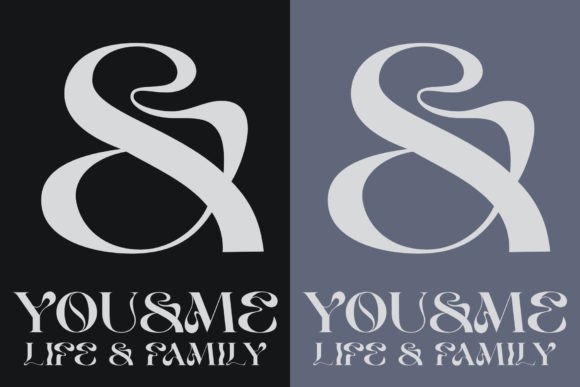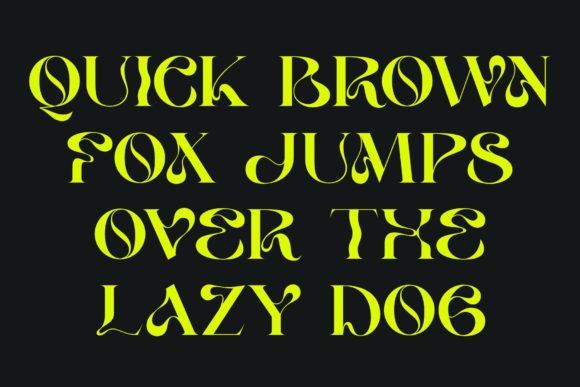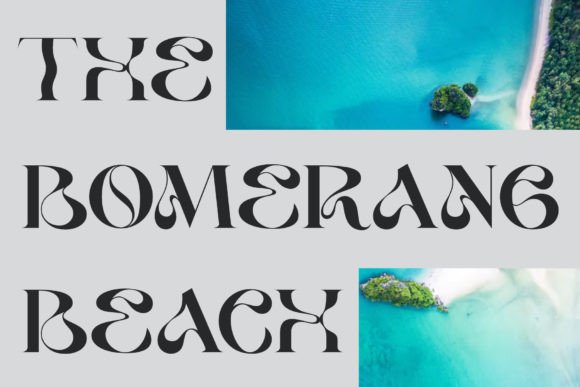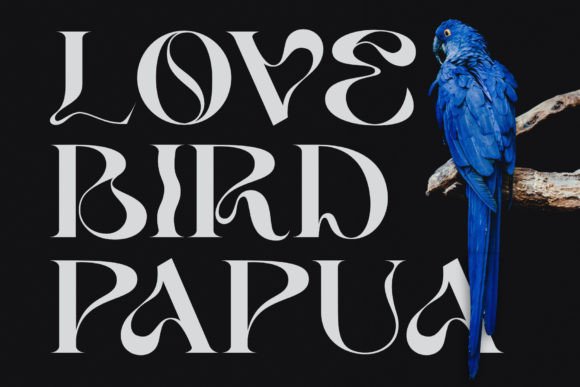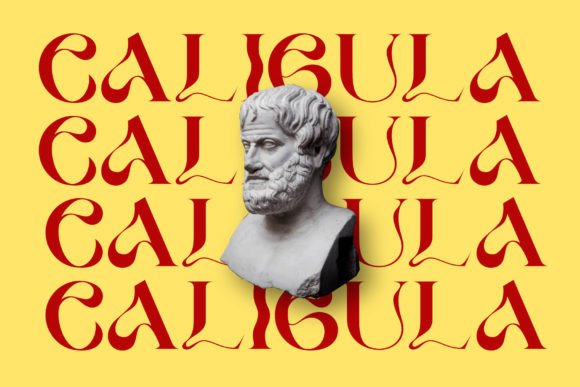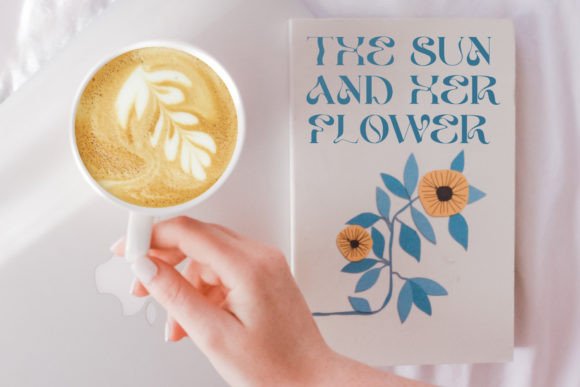
Introduction to Serba Font
Do you remember that moment when you finally nailed a design concept for your creative project? The excitement, the satisfaction, and the feeling of accomplishment? For designers, those moments are what make all the hard work worth it. And when you’re working on a project that requires a unique and eye-catching font, finding the perfect one can make all the difference.
That’s where the Serba Font comes in – a fun, unique look serif display font that’s perfect for social media, logos, web design, posters, flyers, book covers, and so much more. With its high-quality design and transparent background, this font is a valuable resource for designers who want to take their creative projects to the next level.
Key Features of Serba Font
- High-quality font with a transparent background, ideal for creative projects requiring a clean and modern look.
- Large character set with extensive language support, making it a versatile design resource for diverse creative projects.
- Unique characteristics: elegant lines, modern aesthetic, and a neutral tone, making it suitable for a wide range of creative projects.
Honest Review: Serba Font
As a designer, I’m always on the lookout for high-quality design resources to elevate my creative projects. Recently, I had the opportunity to try out the Serba Font, and I’m excited to share my honest review with you.
What works well: ✨ The Serba Font is a beautifully crafted font that’s perfect for designers looking for a clean and modern look. The font features a transparent background, making it easy to combine with other design elements. I love how versatile it is, and it’s perfect for a wide range of creative projects.
What doesn’t: ⚠️ While the Serba Font is free to download, I wish there were more font weights and styles available. Additionally, the font could benefit from better support for languages other than English.
Overall, I’m impressed with the Serba Font, and I think it’s a great addition to any designer’s toolkit. If you’re looking for a high-quality font for your next creative project, I’d definitely recommend giving it a try. Just be aware of the limitations mentioned above.
- Perfect for modern design projects
- Easy to combine with other design elements
Serba Font
Serba Font is a high-quality design resource perfect for your next creative project. With a transparent background and versatile style, it’s easy to integrate into your workflow.
Using Serba Font in Creative Projects
Serba Font is perfect for:
- Designing business cards and brochures
- Creating social media graphics and ads
- Developing branding materials and logos
Tips for Getting the Most Out of Serba Font
To maximize the benefits of Serba Font, remember to:
- Combine Serba Font with other design elements for a unique look
- Use it consistently across your branding materials